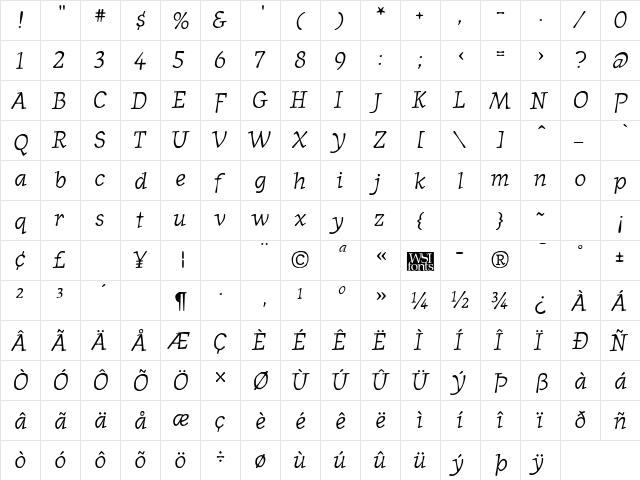
OldNews Italic
Design Context for OldNews Typeface
OldNews offers clean, dependable letterforms without strong stylistic allegiance, making it a practical choice for designers who need flexibility. Its italic angle brings a sense of urgency and motion to the letterforms.
Pro Tip: Try OldNews for annotation and caption copy alongside an upright companion — the contrast in angle creates a dynamic but ordered typographic system.